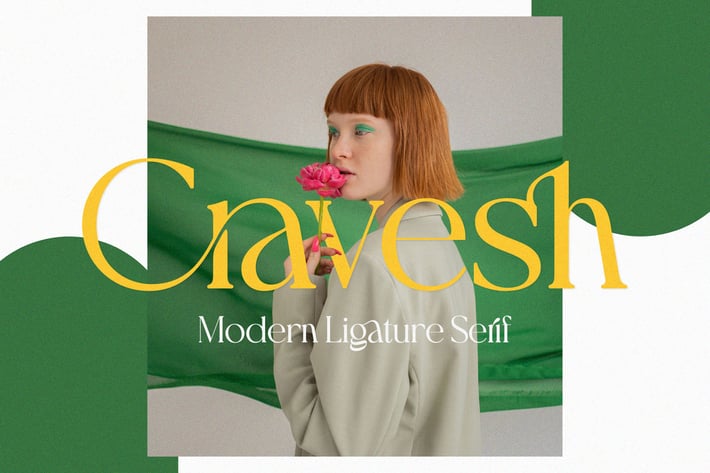
Cravesh - Ligature serif font
Introducing Cravesh - Ligature serif font. Cravesh is a ligature serif font, stylish & elegant serif font, This type of font is very suitable for your various needs such as branding projects, logos, social media posts, advertisements, labels, product packaging, photography, wedding designs, watermarks, invitation product designs, stationery, and any project.
FEATURES:
- Ligature & alternates
- Symbols